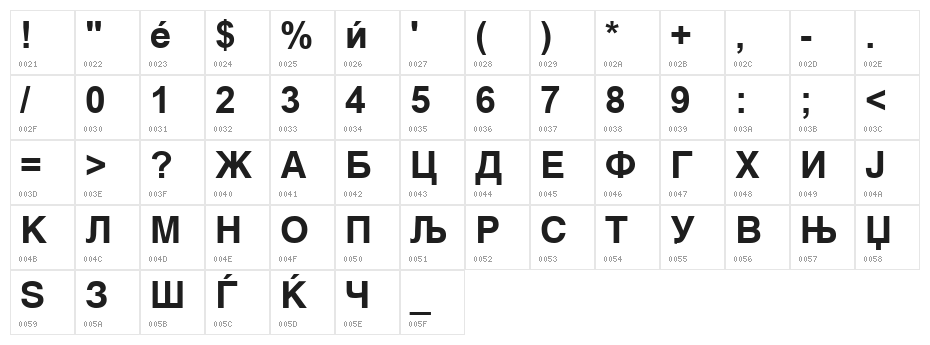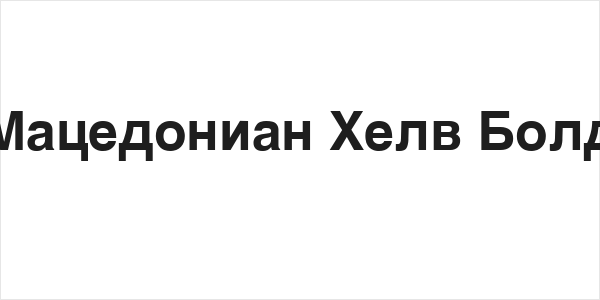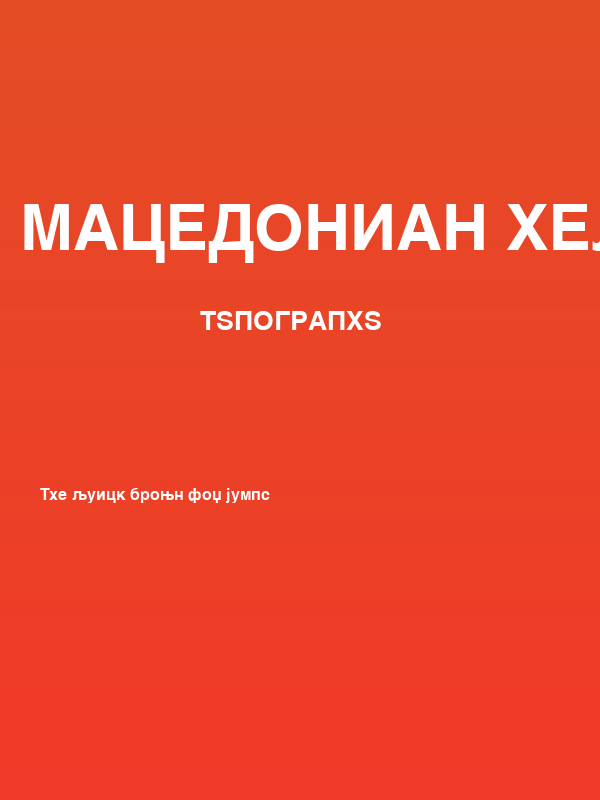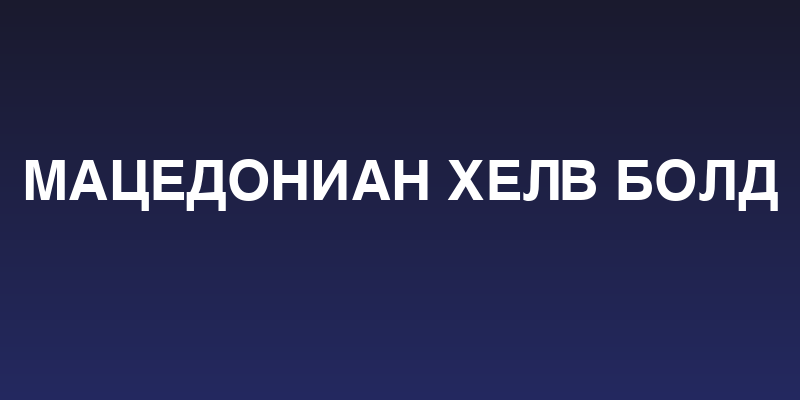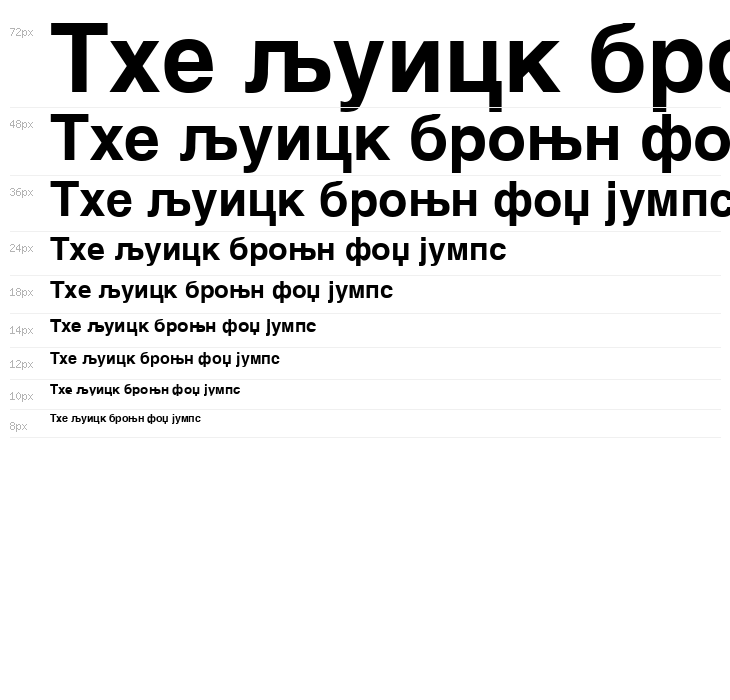
Macedonian Helv Bold Font
Macedonian Helv Bold Description
This font presents a bold and robust appearance, characterized by its clean and modern sans-serif design. The uppercase and lowercase letters are well-proportioned, with a consistent stroke width that conveys strength and clarity. The numerals are straightforward and align well with the overall geometric style of the font. Special characters are distinct and maintain the font's cohesive look. The font's simplicity and boldness make it highly legible, suitable for various applications where clarity and impact are essential.
| Use Case | Headlines, Logos, Signage |
| Proposed Projects | Ideal for branding, headlines, signage, and any project requiring a modern and impactful typeface. |